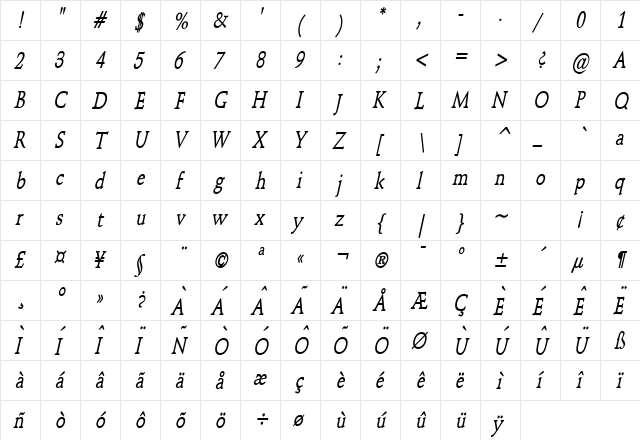
Schroeder Condensed Bold Italic Font Preview
Design Context for Schroeder Condensed Typeface
Schroeder Condensed takes a measured approach to typography — its balanced proportions and neutral character make it a reliable workhorse for both digital and print work. The slanted form adds forward momentum and visual energy. Its bold stroke weight gives it real presence on the page. The condensed width makes it efficient for tight spaces without sacrificing legibility.
Pro Tip: Try Schroeder Condensed for annotation and caption copy alongside an upright companion — the contrast in angle creates a dynamic but ordered typographic system.